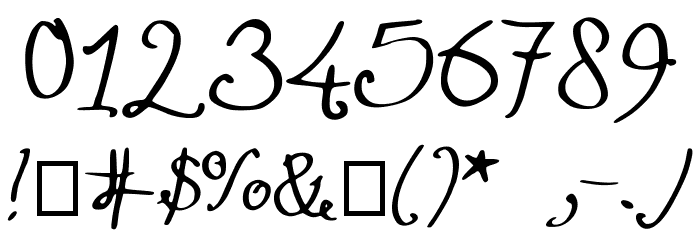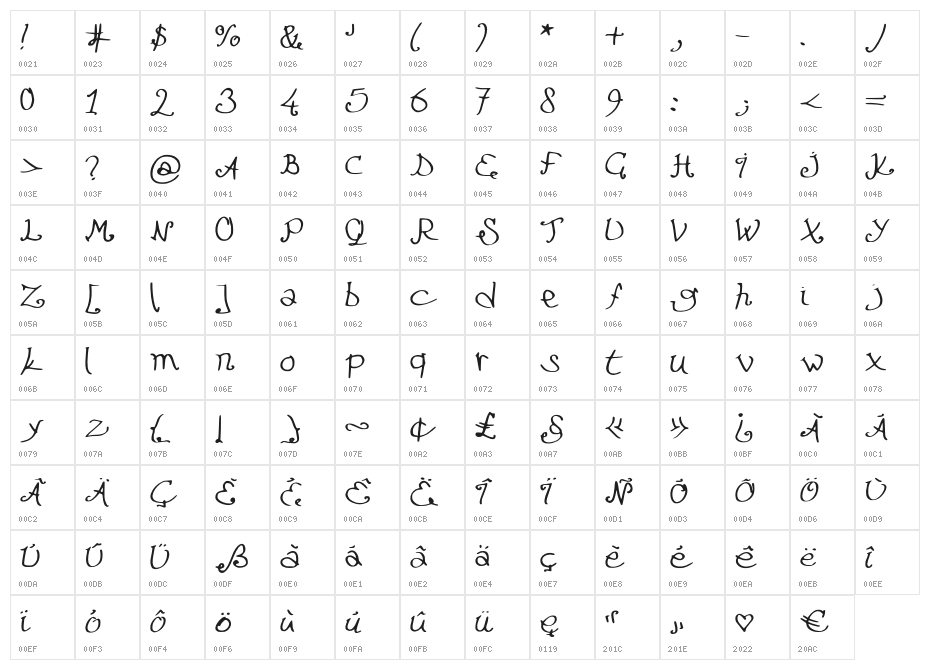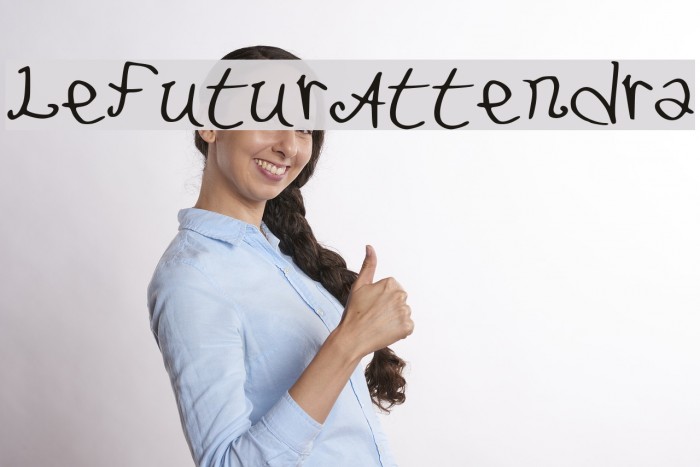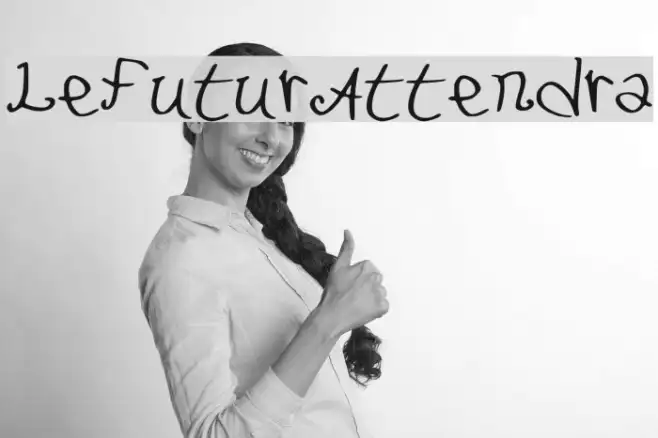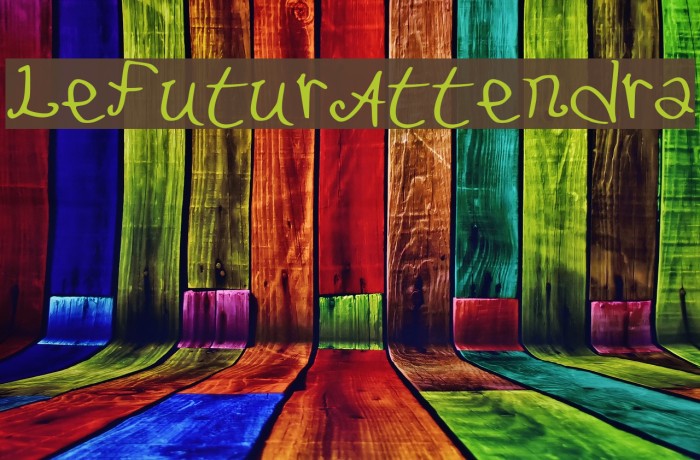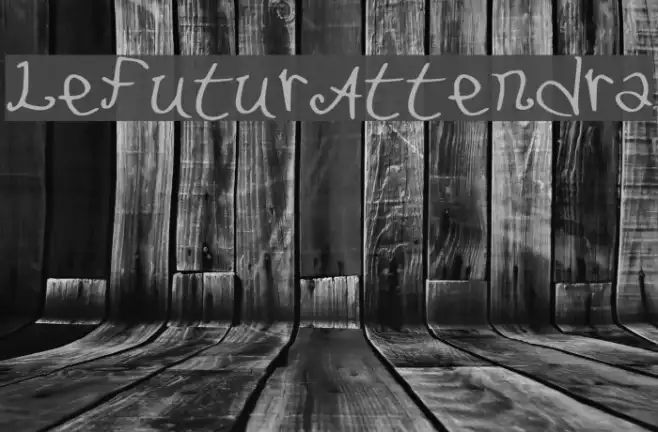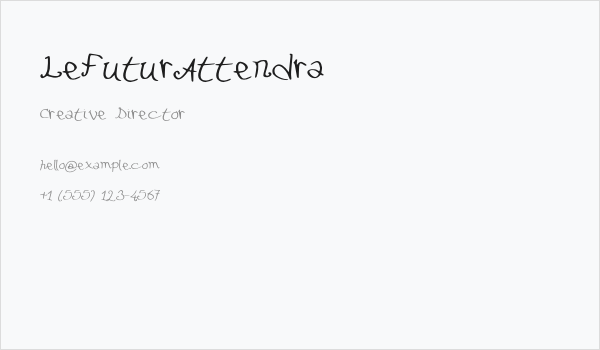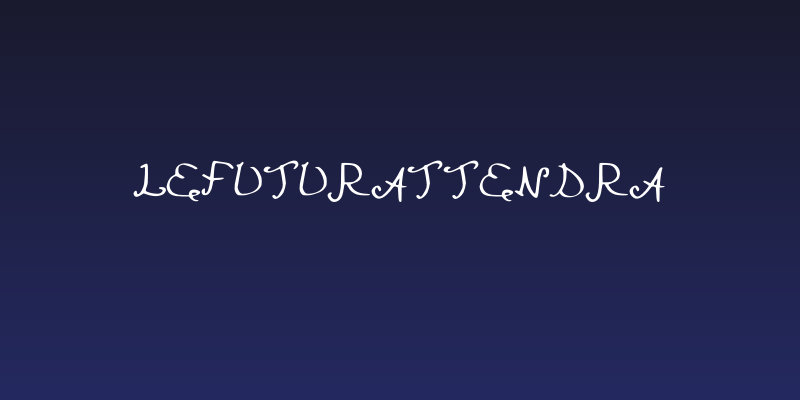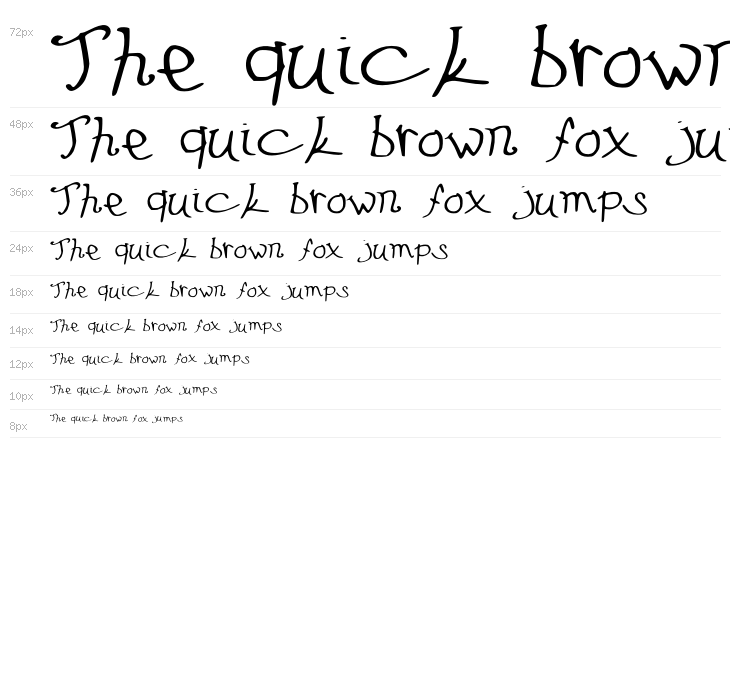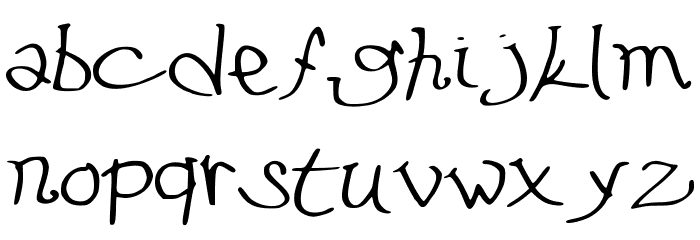
LeFuturAttendra Font
LeFuturAttendra Description
This font features a whimsical and playful design with a handwritten style. The characters are slightly irregular, giving it a casual and artistic feel. The uppercase letters have unique flourishes and loops, while the lowercase letters maintain a consistent flow. The numbers are distinct and match the overall style, adding to the font's charm. Special characters are creatively designed, enhancing the font's decorative appeal. This font is perfect for projects that require a touch of creativity and individuality.
| Proposed Projects | Ideal for greeting cards, invitations, children's books, and creative branding. |